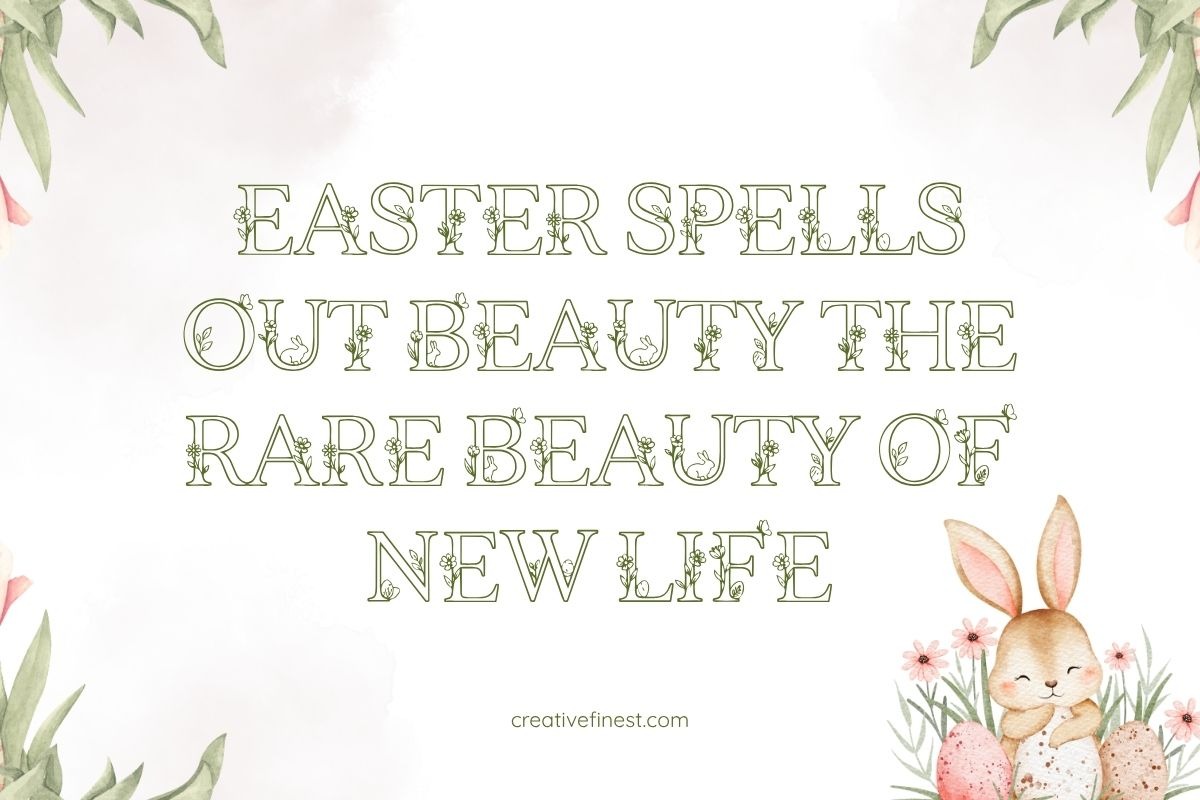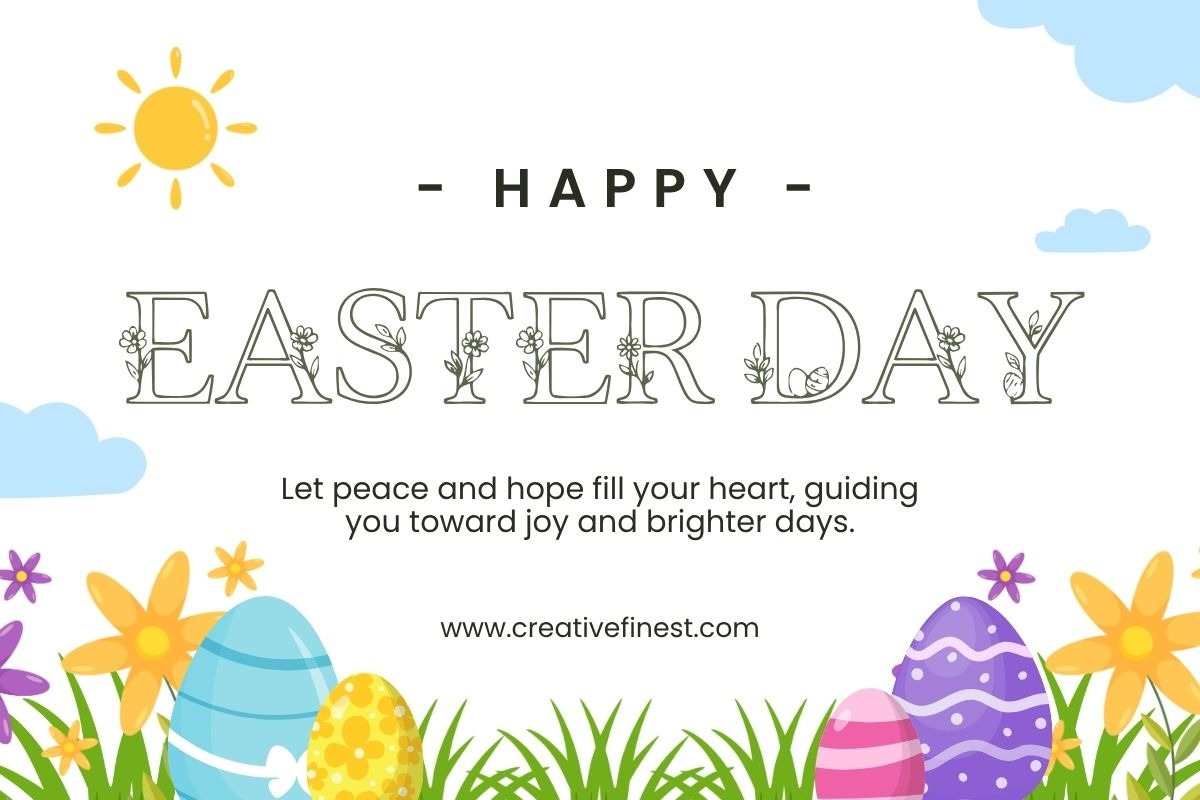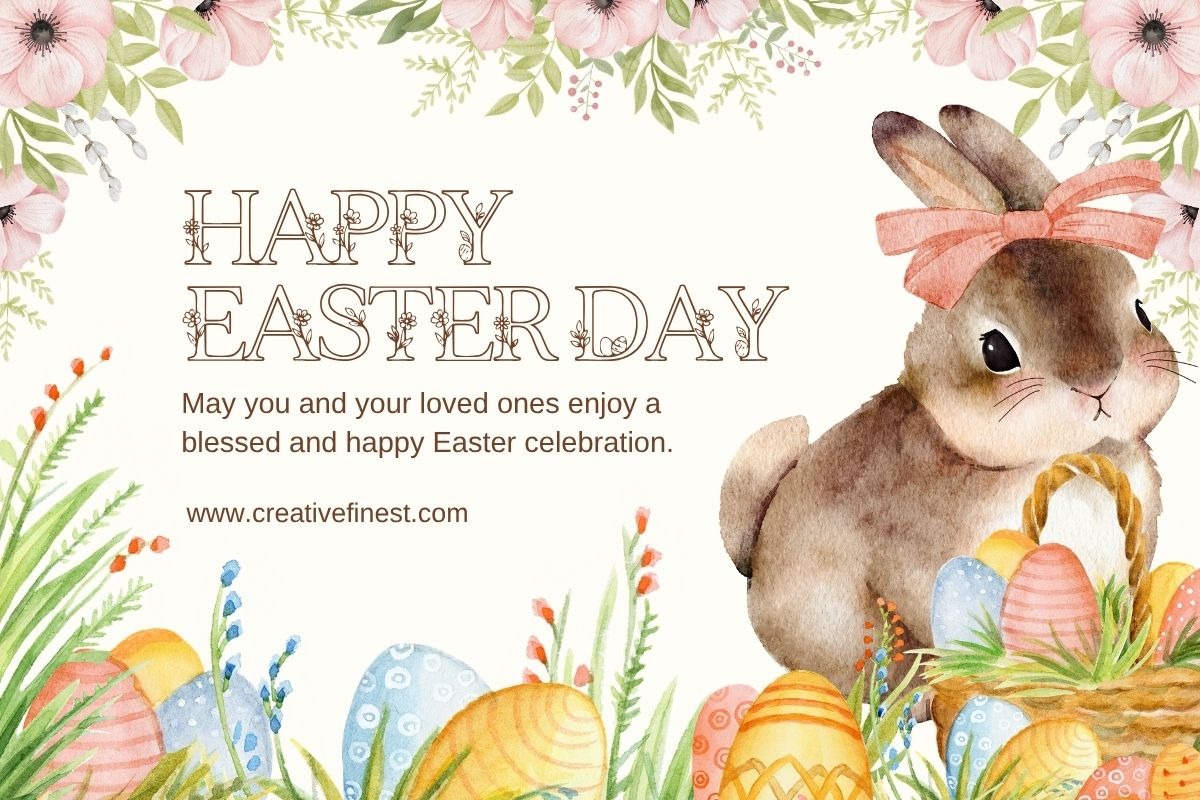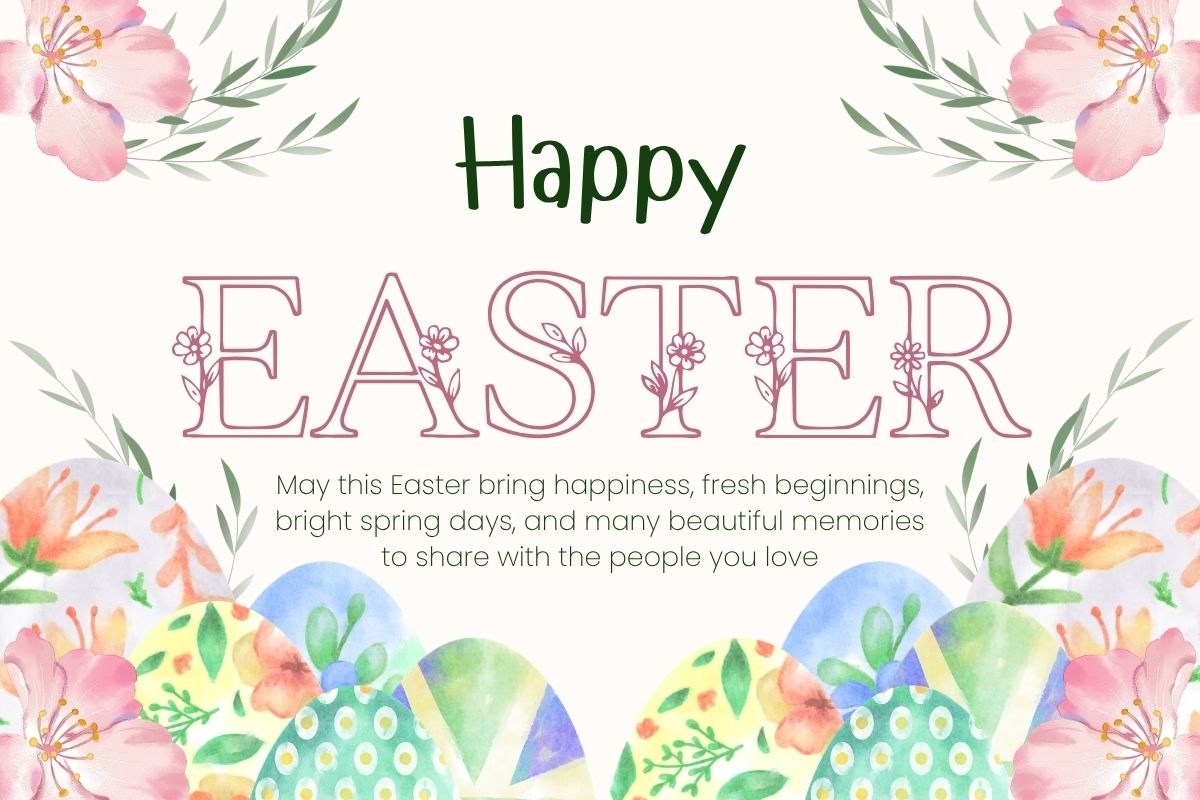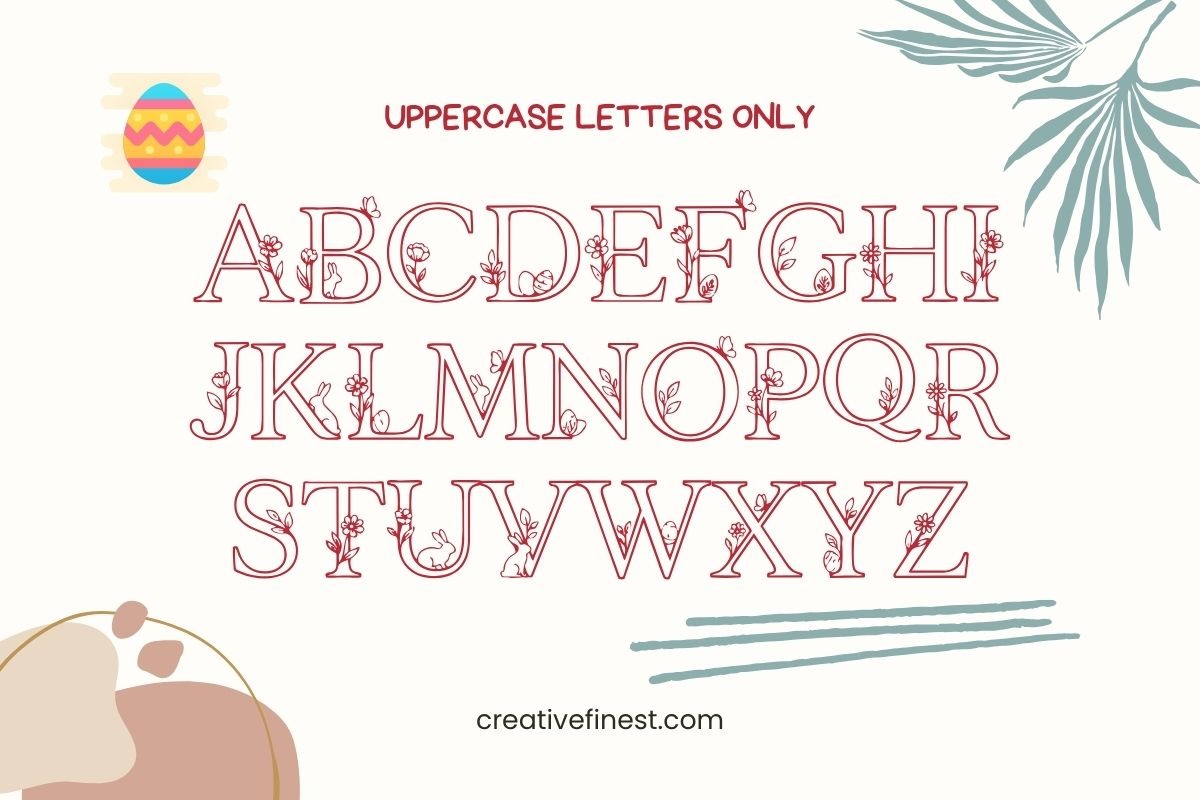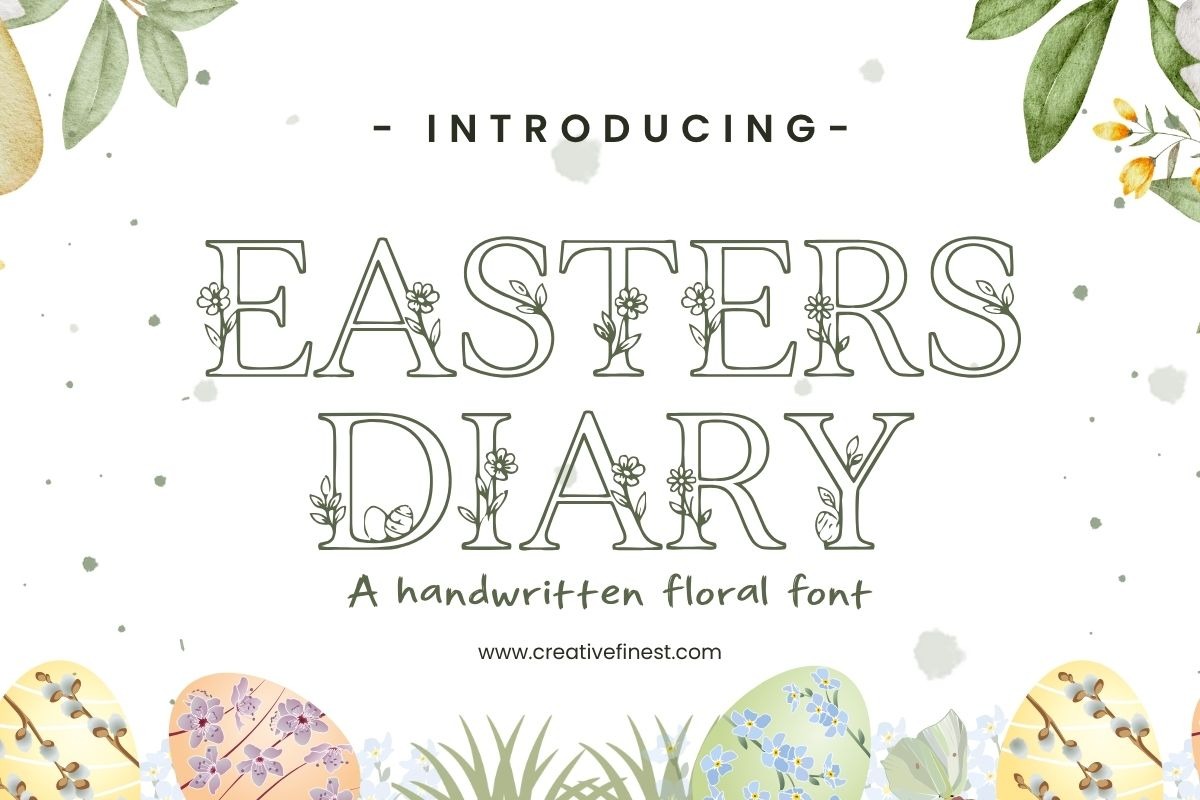
Easters Diary Handmade Font
Introducing Easters Diary Handmade Font has a clean look with small flower details inside the letters. It adds a soft spring look while the text stays clear and easy to read.
This font comes with uppercase characters only. It works well for cards, invites, kids’ books, posters, and Easter or spring designs. It keeps your text simple with a nice decorative detail.